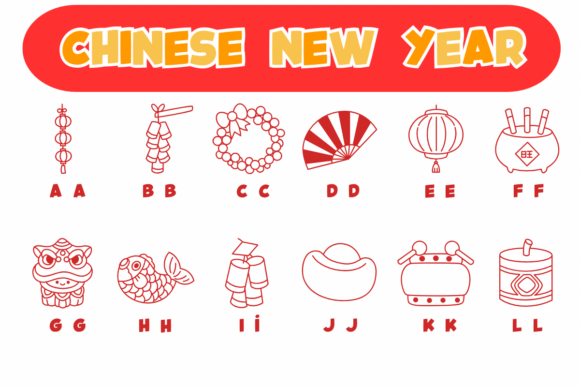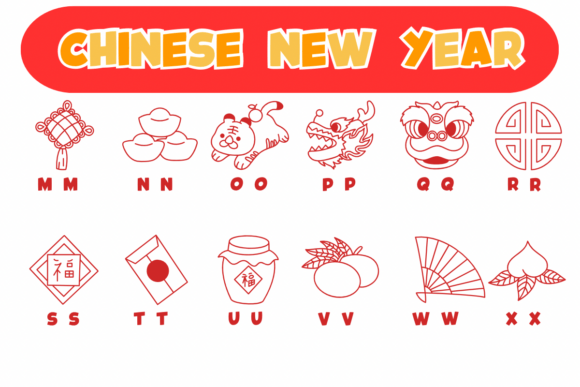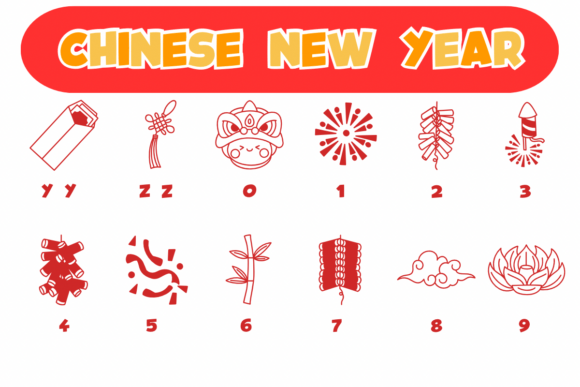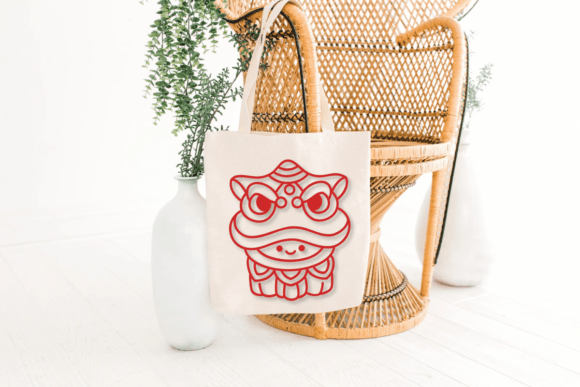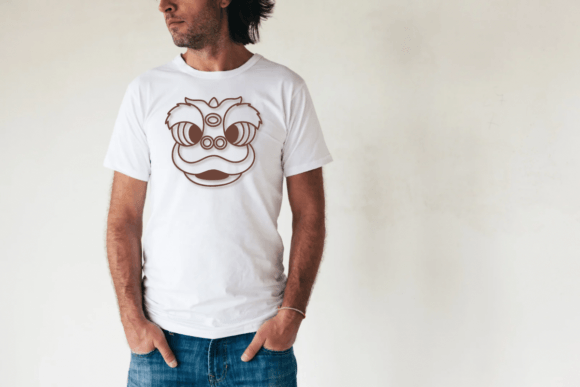
Welcome the Vibrancy of Chinese New Year with the Perfect Font
Chinese New Year, a time of renewal, celebration, and vibrant traditions, is the inspiration behind the Chinese New Year Font, a delightful dingbats font that brings the essence of this festive season to your creative projects. Whether you’re designing wedding invitations, crafting DIY decorations, or brainstorming ideas for logos and more, this font is your gateway to infusing your work with the joy and aesthetic of Chinese New Year.
The Essence of Chinese New Year Font
Designed with a traditional theme in mind, the Chinese New Year Font is a collection of glyphs and symbols that reflect the rich cultural heritage of Chinese New Year celebrations. From auspicious animals to symbolic decorations, each element in this font is carefully crafted to evoke the spirit of the festival. This dingbats font is not just a collection of characters; it’s a creative tool that allows designers and crafters to incorporate the beauty and symbolism of Chinese New Year into their work.
Enhance Your Creative Projects
The versatility of the Chinese New Year Font makes it an invaluable resource for a wide range of creative projects. Here are a few ways you can use this font to enhance your designs:
- Wedding Invitations: Add a touch of cultural elegance and festive cheer to your wedding invitations. The font’s traditional yet celebratory feel makes it perfect for couples looking to incorporate elements of Chinese New Year into their special day.
- DIY and Crafts: Whether you’re making decorations, gift tags, or other craft projects, this font can add a personalized and thematic touch. It’s ideal for those who love to create handmade items that reflect the spirit of the season.
- Decorations: Use the font to create banners, signs, and other decorative items for your home or event space. The symbolic characters and motifs will add depth and cultural significance to your decorations.
- Logos and Branding: For businesses looking to incorporate cultural elements into their branding, the Chinese New Year Font offers a unique opportunity. It’s perfect for creating logos, packaging, and marketing materials that stand out and tell a story.
Why Choose Chinese New Year Font?
Choosing the Chinese New Year Font for your projects comes with several benefits:
- Cultural Significance: By incorporating elements of Chinese New Year, you’re not just adding visual appeal but also depth and cultural significance to your designs.
- Versatility: The font’s wide range of glyphs and symbols ensures you have plenty of creative options at your disposal.
- Ease of Use: As a dingbats font, it’s easy to use and integrate into your projects, requiring no special software or technical skills.
Tips for Using Chinese New Year Font
To get the most out of the Chinese New Year Font, consider the following tips:
- Mix and Match: Combine different glyphs and symbols to create unique and personalized designs.
- Play with Colors: The font’s traditional theme can be enhanced with vibrant colors associated with Chinese New Year, such as red and gold.
- Experiment with Sizes: Varying the size of the glyphs can add dimension and interest to your designs.
The Chinese New Year Font is a powerful tool for designers and crafters looking to infuse their projects with the vibrancy and cultural richness of Chinese New Year. With its traditional theme, versatile application, and ease of use, this dingbats font is sure to inspire creativity and add a festive touch to any project. So why wait? Dive into the celebration and let the Chinese New Year Font bring your creative visions to life.